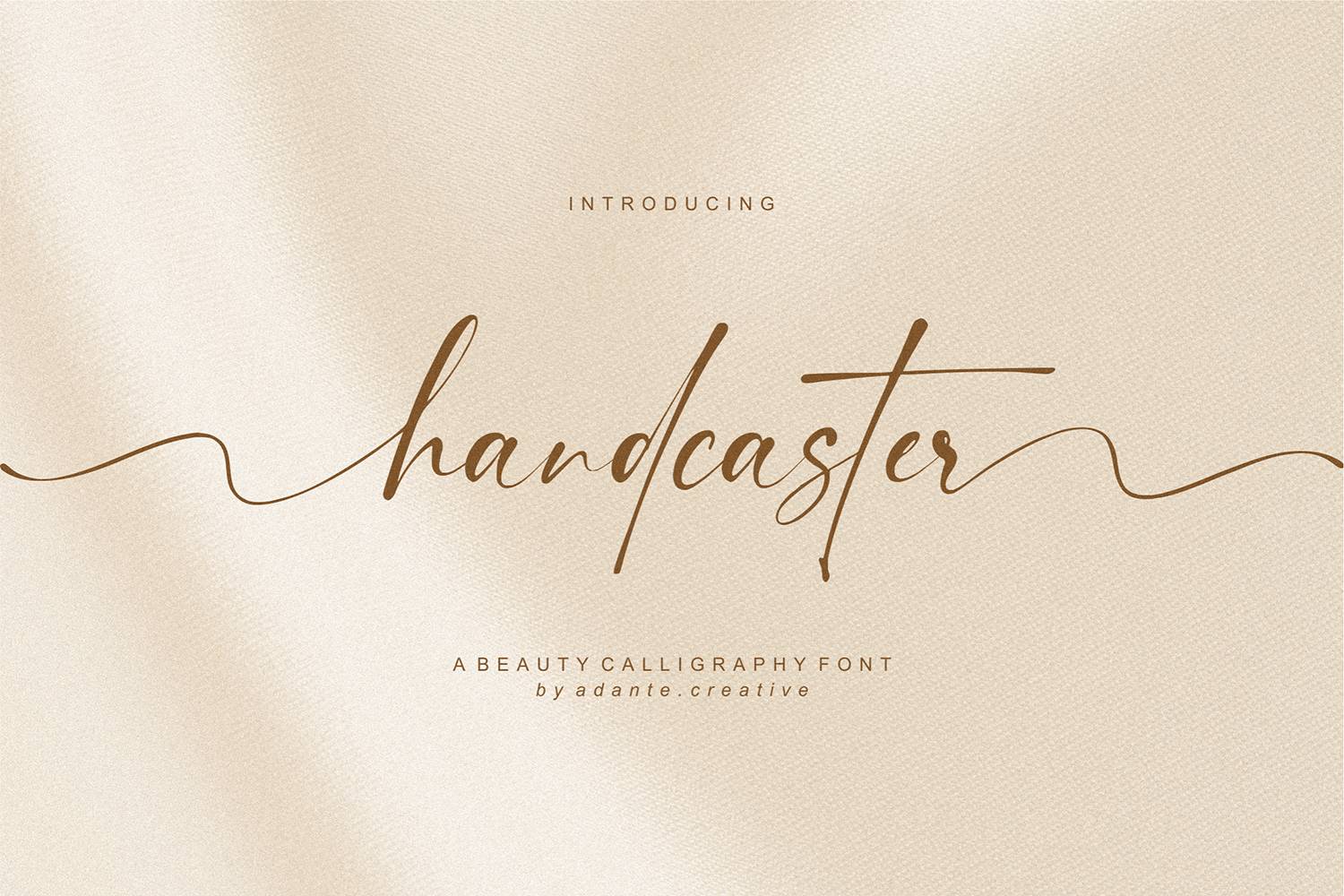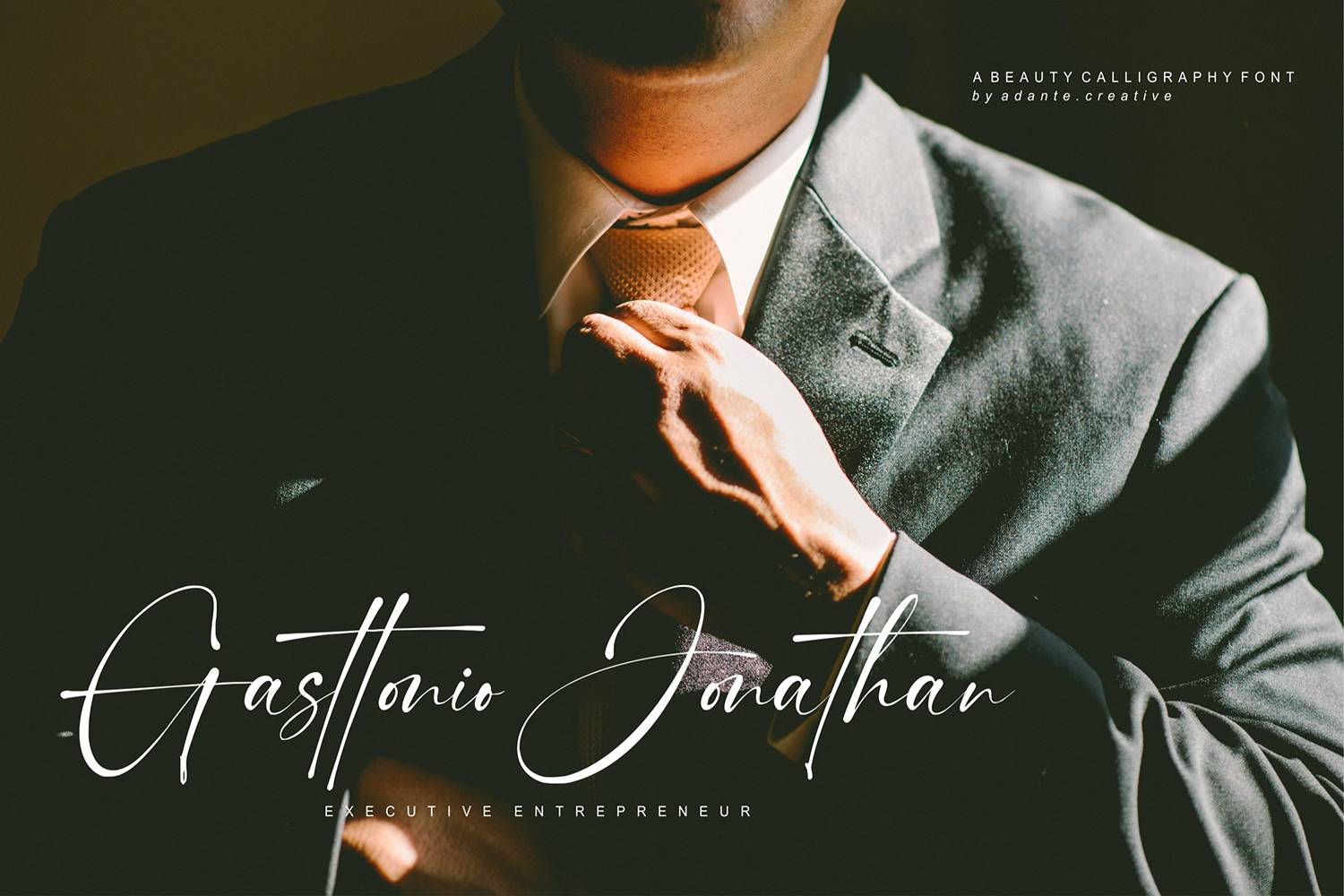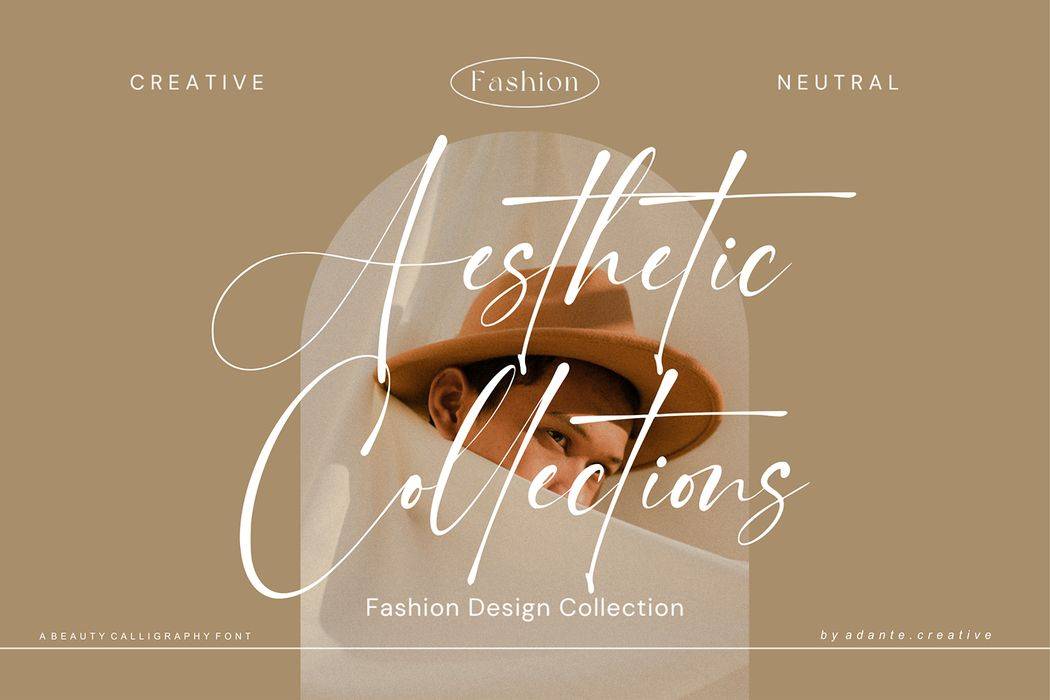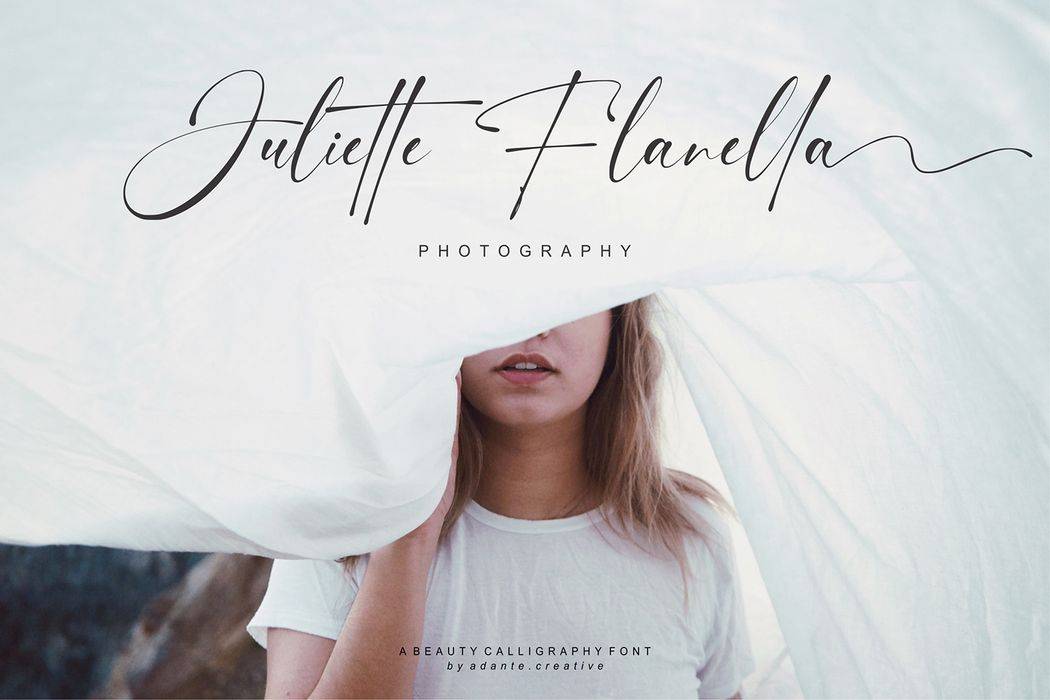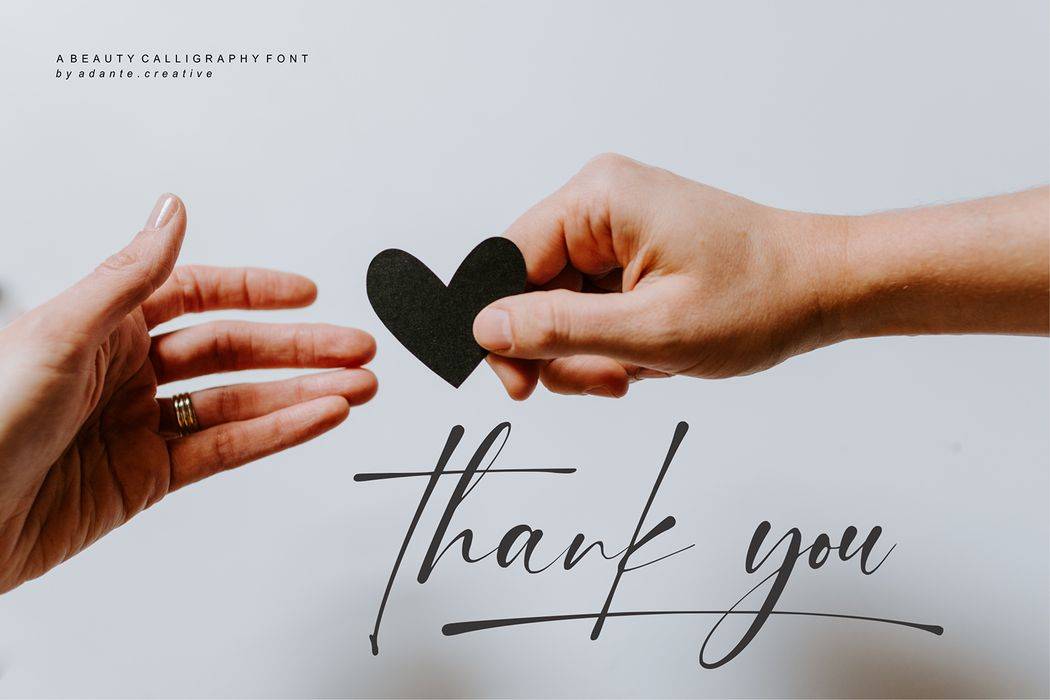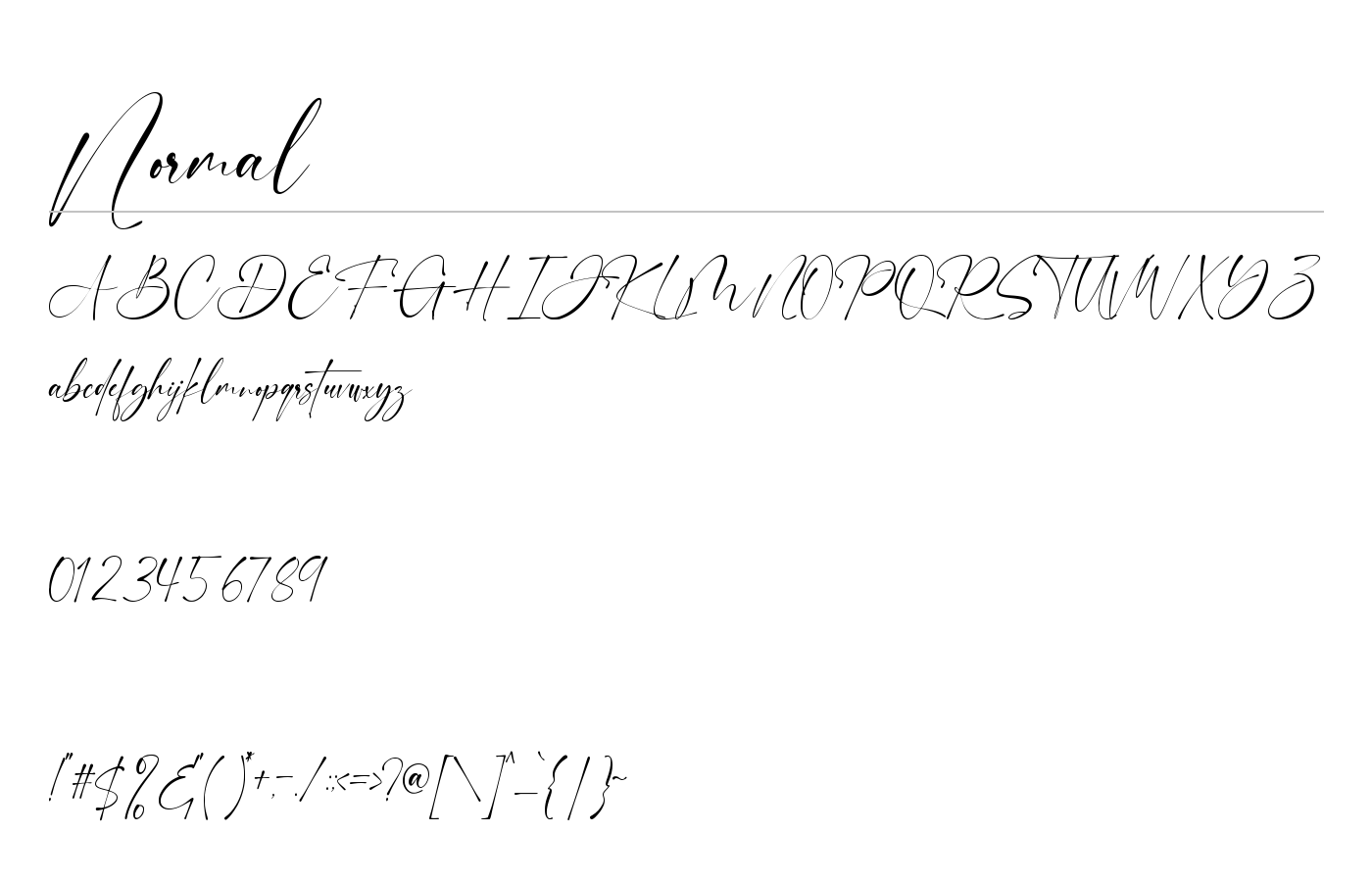
Handcaster is an elegant, delicate script font with thin, flowing strokes that mimic sophisticated, hand-drawn calligraphy. Its high contrast and graceful curves give it a refined and stylish personality, making it ideal for luxury branding, wedding invitations, and high-end editorial design where a touch of class and personal flair is desired.
Handcaster Font
About Handcaster Font
| Font family | Handcaster Font |
| Designer | Adante.Creative |